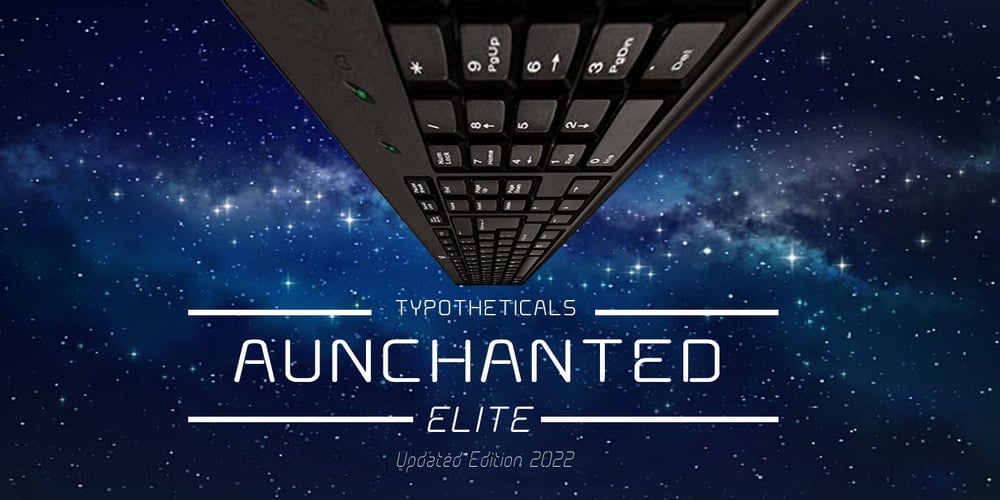
Aunchanted Elite
Aunchanted Elite font
Aunchanted Elite Font Family was designed by Graham Meade and published by Typotheticals. Aunchanted Elite contains 12 styles and family package options. Originally released free as Aunchanted, but completely redrawn with gentler curves to give a softer feel to the face.Aunchanted Elite has been expanded and updated in 2022